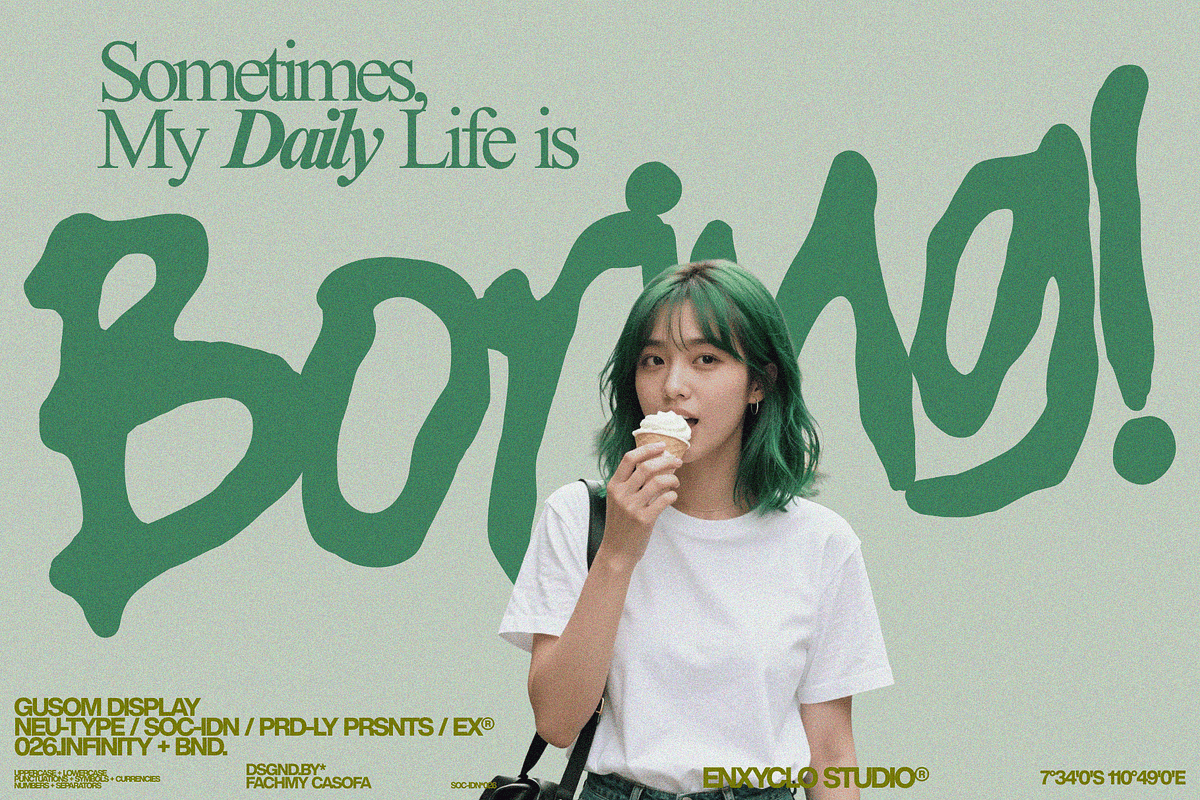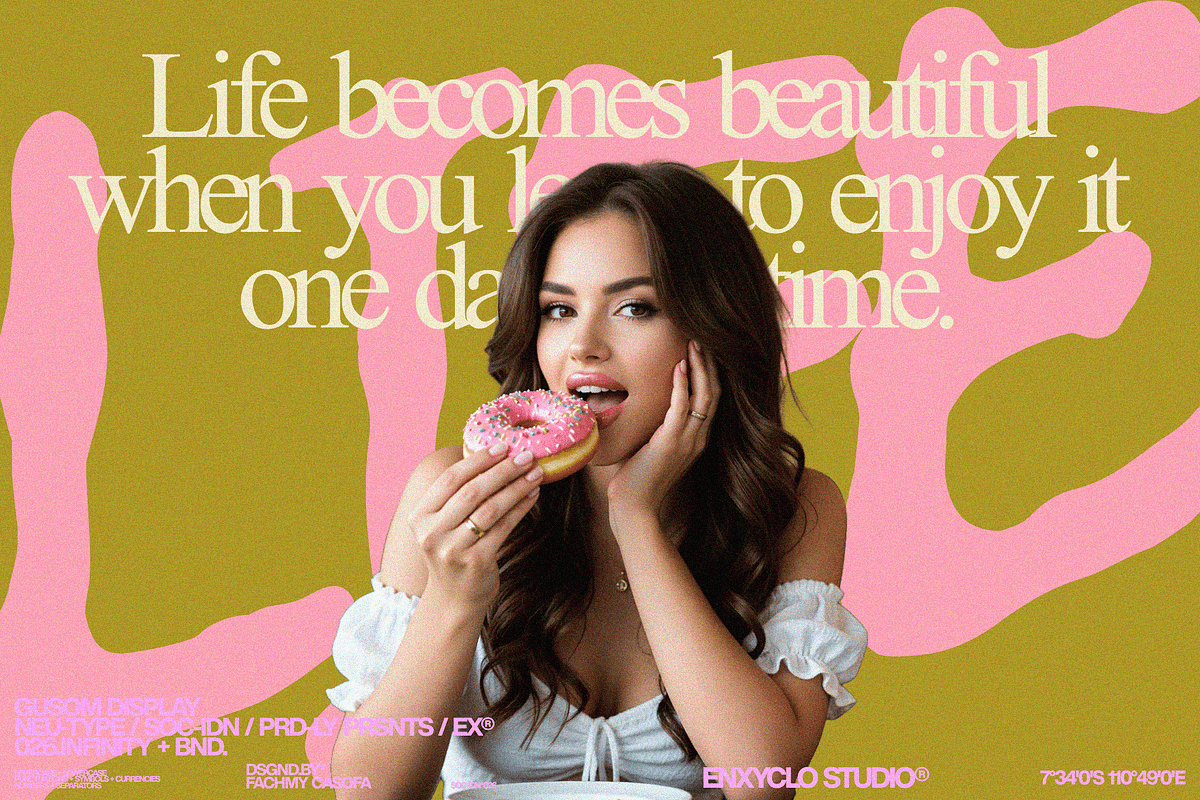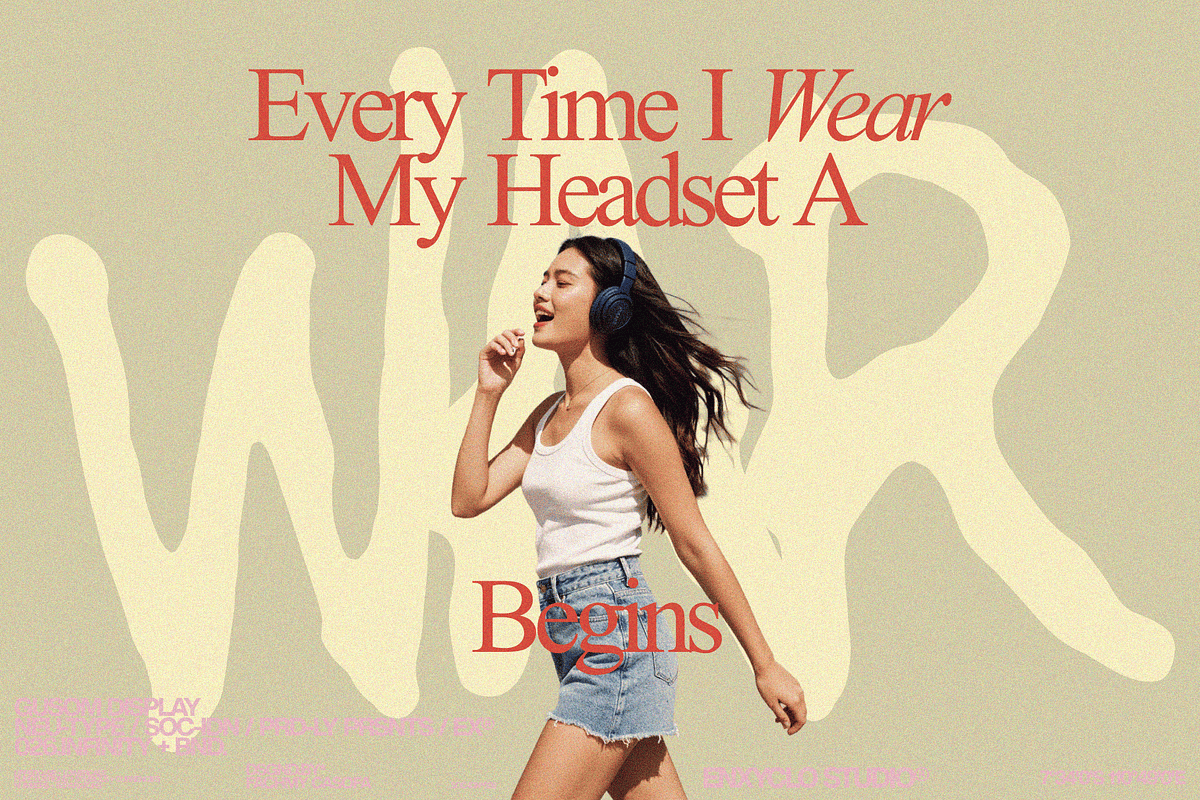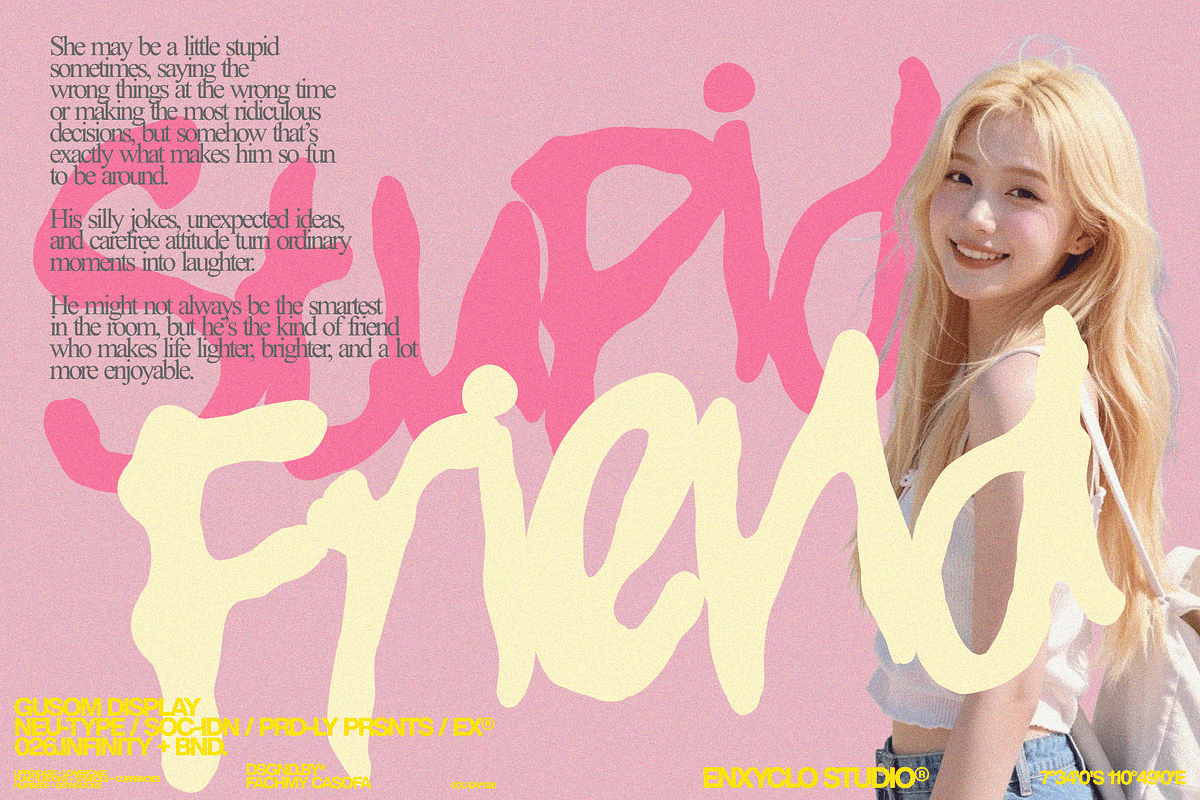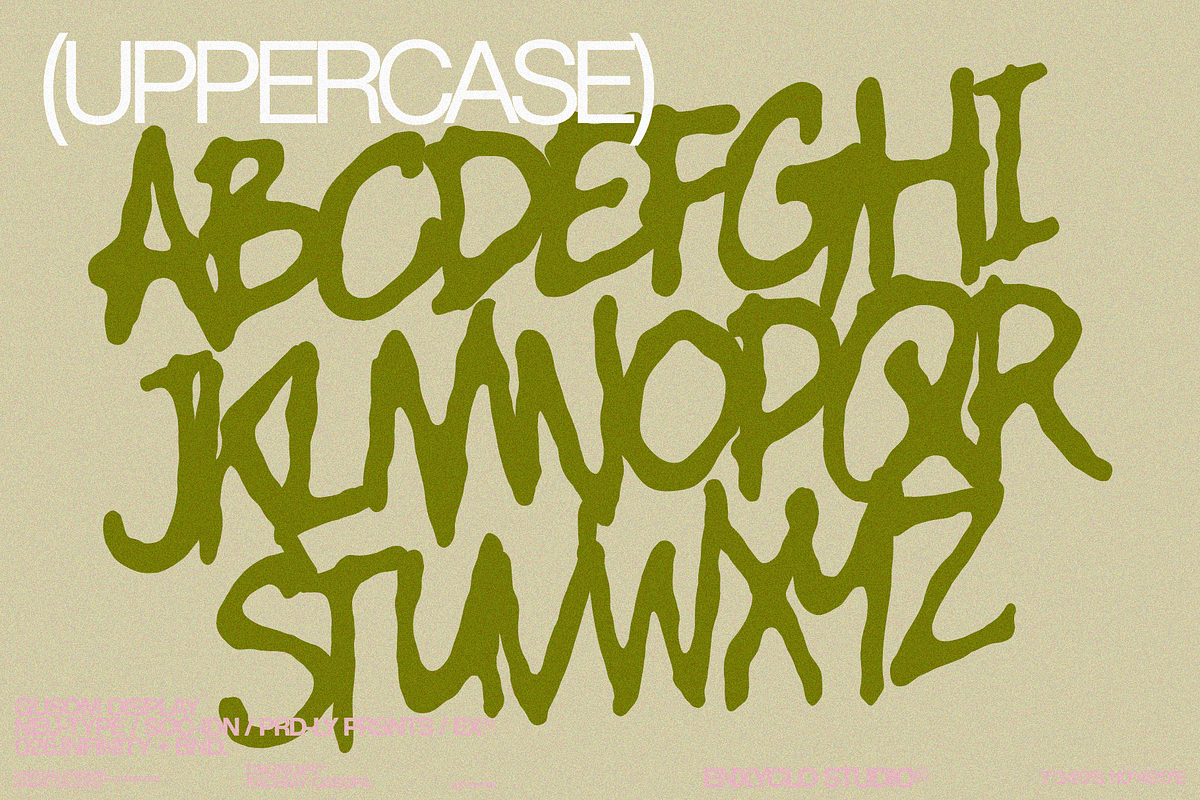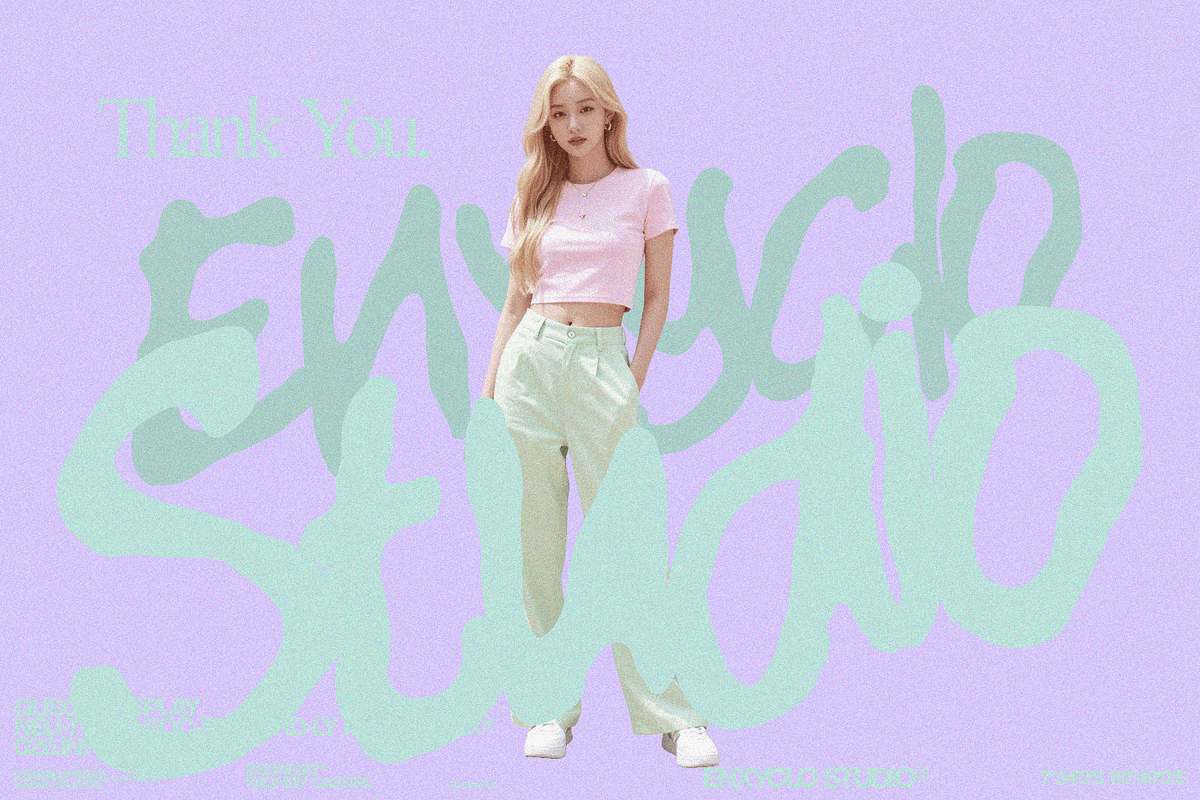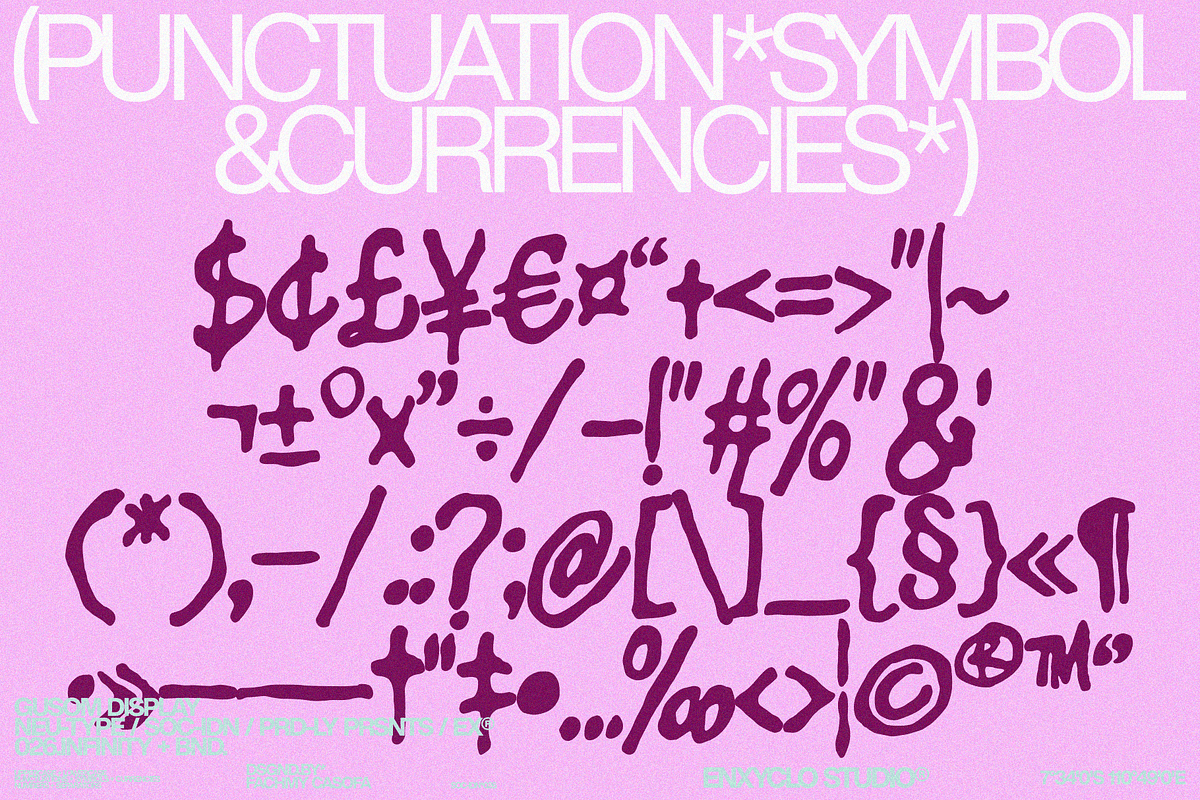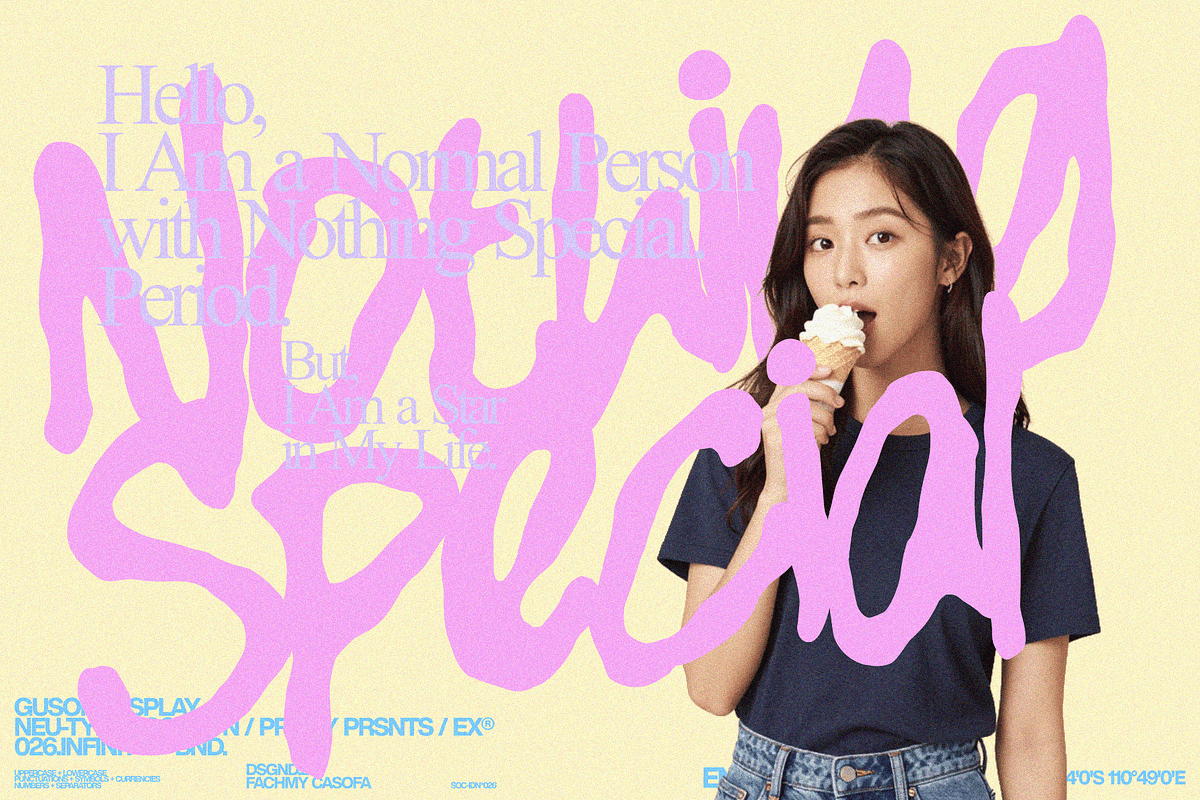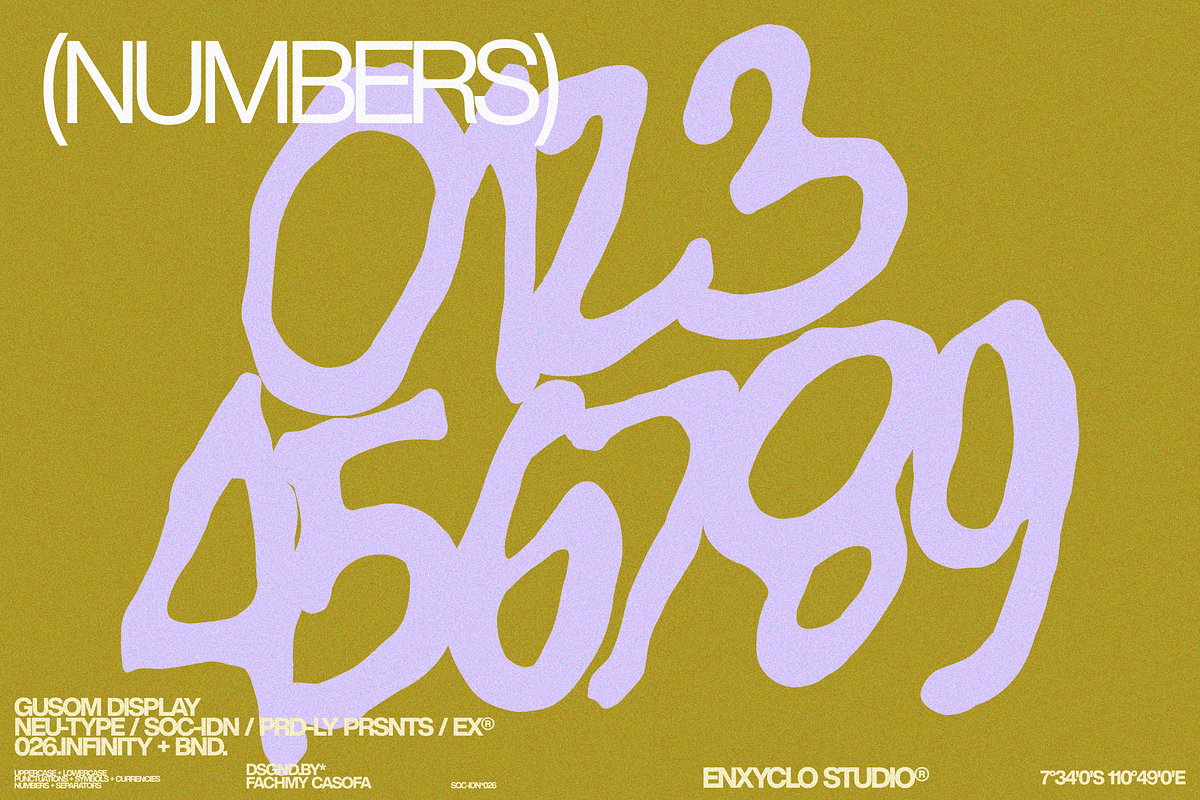
GUSOM — Gritty Poster Headline Font
GUSOM is a bold, gritty handdrawn font designed to bring raw urban energy into modern visual design. Built with expressive strokes and imperfect handmade details, this typeface captures the spirit of industrial textures, street aesthetics, and fearless creative expression.
With its strong and confident structure, GUSOM is crafted to dominate headlines and poster designs. Each letter carries a rough, handdrawn character that feels authentic, raw, and expressive—perfect for designers who want typography that feels alive, bold, and unapologetically modern.
The gritty texture and urban-inspired style create a powerful visual impact while maintaining clarity and readability. Whether used for striking posters, bold headlines, or contemporary branding visuals, GUSOM delivers a modern edge that instantly grabs attention.
If your design needs a font that feels raw, expressive, and full of urban attitude, GUSOM is built to make your message stand out loud and clear.
FEATURE
- Uppercase letters
- Lowercase letters
- Punctuation marks
- Symbol set
- Currency symbols
PERFECT FOR
- Creative logo & logotype design
- Branding & brand identity
- Modern agency visuals
- Contemporary packaging
- Poster & headline design
- Social media graphics
- Creative campaigns & visual storytelling